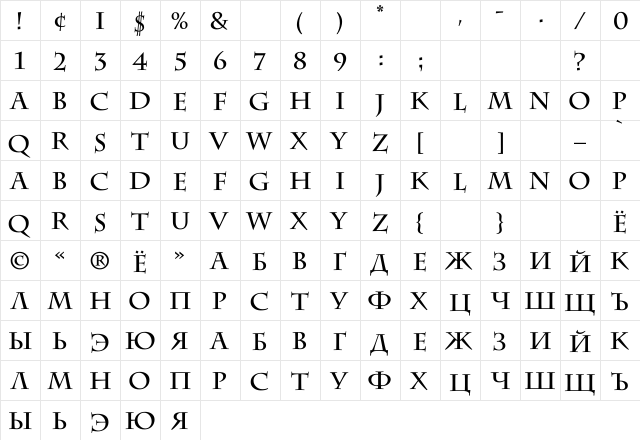
CharlemagneC Regular
Design Context for CharlemagneC Typeface
CharlemagneC offers clean, dependable letterforms without strong stylistic allegiance, making it a practical choice for designers who need flexibility.